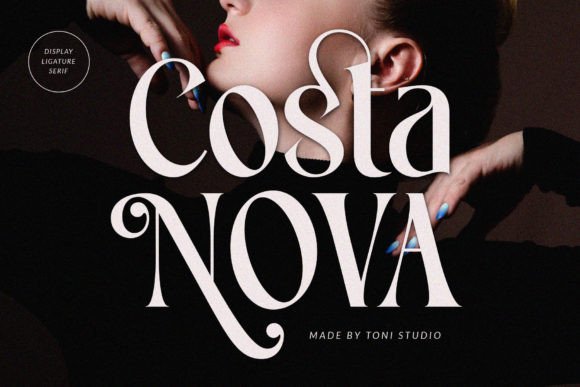
Prepare to be swept away by Costa Nova, a captivating serif font family that exudes timeless elegance. Each letter dances gracefully across the page, carrying with it a touch of sophistication and charm. Whether you're crafting heartfelt wedding invitations, expressing gratitude in personalized thank-you cards, or designing captivating logos for your brand, Costa Nova transforms your words into exquisite works of art.
Indulge in the heartwarming beauty of handwritten letters without sacrificing the precision of digital design. Costa Nova's PUA encoding grants you effortless access to a treasure trove of glyphs and alternates, empowering you to customize your creations to perfection. Let Costa Nova ignite your creativity, adding a touch of magic to every design.